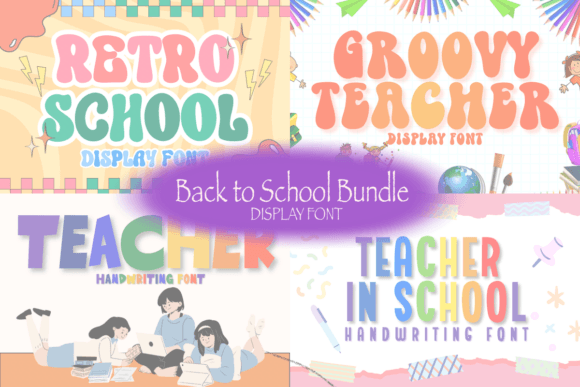
Back to School Bundle: A Handwritten Font for Real-World Creativity
In a digital landscape dominated by sleek, geometric sans-serifs and rigid typographic grids, there is a distinct charm in the imperfection of human handwriting. The Back to School Bundle captures this essence perfectly. It is not merely a collection of characters; it is a tool designed to inject personality, warmth, and authenticity into your visual projects. Whether you are a teacher organizing lesson plans, a small business owner designing merchandise, or a parent creating memory books, this font serves as a bridge between professional design and personal touch.
The Heart of the Design: Authenticity in Every Stroke
At its core, the Back to School Bundle is a handwritten font that mimics the natural flow of pen on paper. Unlike mechanical scripts that look too perfect, this typeface retains the slight variations in stroke weight and letter spacing that occur when a real person writes. This "human" quality is what makes it so versatile. When you apply it to a project, it immediately signals effort and care. It feels less like a mass-produced graphic and more like a note passed between friends or a label written with love.
This authenticity is particularly valuable in an era where audiences crave connection. People are increasingly skeptical of polished, corporate aesthetics. They respond better to content that feels handmade. By utilizing the Back to School Bundle, you can bypass that skepticism and establish an immediate rapport with your viewer. It suggests that someone took the time to write this message specifically for them, rather than generating it through an algorithm.
Revitalizing Personal Note-Taking and Journaling
One of the most immediate applications for this font is in the realm of personal organization and reflection. For adults who have returned to the habit of analog journaling or bullet journaling, having a digital version of their handwriting can streamline the process without losing the aesthetic appeal. Imagine planning your semester or organizing your weekly tasks. Using the Back to School Bundle for digital planners allows you to create templates that feel intimate and approachable.
When writing a diary entry or a gratitude log, the font choice sets the tone. A formal serif might feel stiff, but a handwritten style invites vulnerability and honesty. You can use this bundle to digitize your thoughts, creating printable layouts or digital overlays that make your planning sessions feel more creative and less administrative. It transforms a mundane chore into a mindful activity, encouraging you to engage more deeply with the content you are recording.
Designing Meaningful Greeting Cards and Stationery
The art of the greeting card has seen a resurgence, yet finding the right balance between store-bought convenience and homemade sentiment remains a challenge. The Back to School Bundle excels here. It is ideal for crafting custom greeting cards for birthdays, holidays, or simple "thinking of you" notes. Because the font looks genuinely hand-written, it carries the emotional weight of a personal letter without requiring hours of calligraphy practice.
Consider the scenario of a teacher sending end-of-year notes to parents or students. A printed letter in Times New Roman can feel distant, but one formatted with this handwritten font feels like a direct message from the educator. Similarly, for stationery enthusiasts, this font is perfect for creating custom envelopes, sticky notes, and bookmarks. It adds a layer of sophistication to everyday office supplies, turning standard items into branded or personalized tools that reflect individual style.
Expanding Beyond Paper: Commercial and Digital Applications
While the name suggests an educational focus, the utility of the Back to School Bundle extends far beyond the classroom. Its versatility makes it a powerful asset for various industries and creative sectors. The key lies in understanding how the "handwritten" aesthetic translates across different mediums.
Merchandise and Apparel Branding
For entrepreneurs launching clothing lines or selling custom mugs, typography is often the primary design element. The casual, friendly nature of this font works exceptionally well on t-shirts, tote bags, and hoodies. It conveys a sense of approachability and fun, making it perfect for brands targeting families, educators, or lifestyle markets. Picture a coffee mug with a motivational quote written in this font; it feels like a daily reminder from a friend rather than a generic slogan.
On apparel, the font's readability at various sizes ensures that messages remain clear even when scaled down for tags or enlarged for back prints. It avoids the stiffness of bold block letters, offering a softer alternative that appeals to a demographic seeking comfort and relatability in their fashion choices.
Social Media Engagement and Content Creation
In the fast-paced world of social media, stopping the scroll is half the battle. Static images often get overlooked, but text overlays that mimic handwriting tend to capture attention. Content creators and social media managers can use the Back to School Bundle to highlight quotes, emphasize key points in carousels, or add captions to photos. It breaks up the monotony of standard fonts used in news feeds, making posts feel more organic and shareable.
Ultimately, the Back to School Bundle is more than just a downloadable file; it is a catalyst for expression. It empowers users to bring a human touch to their digital and physical creations. Whether you are taking notes, designing a banner, or writing a heartfelt card, this font provides the perfect vehicle for your ideas. By choosing a typeface that reflects genuine human interaction, you elevate your work from mere information delivery to meaningful communication. In a world that often feels automated, embracing the imperfect beauty of handwriting is a powerful way to stand out and connect.